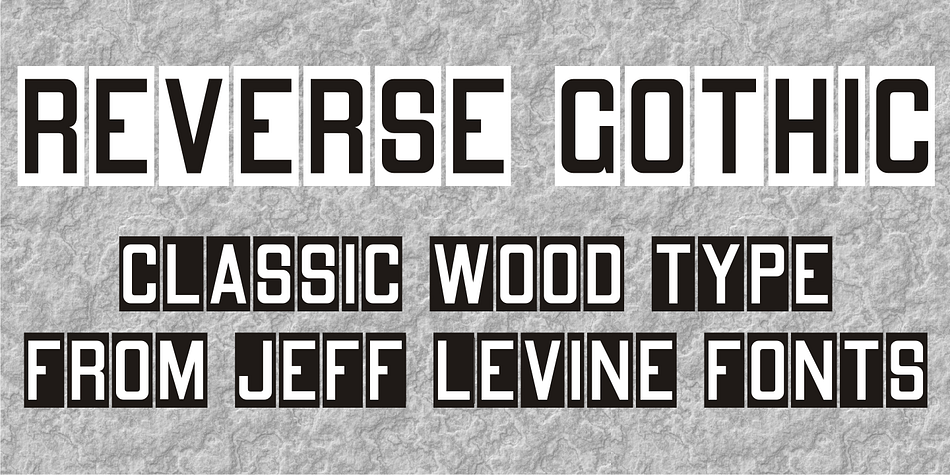
Designed by Jeff Levine, Reverse Gothic JNL is a display font published by Jeff Levine Fonts.
Reverse Gothic JNL is a design based on vintage reverse letterpress type for creating interesting headlines with white-on-black text.